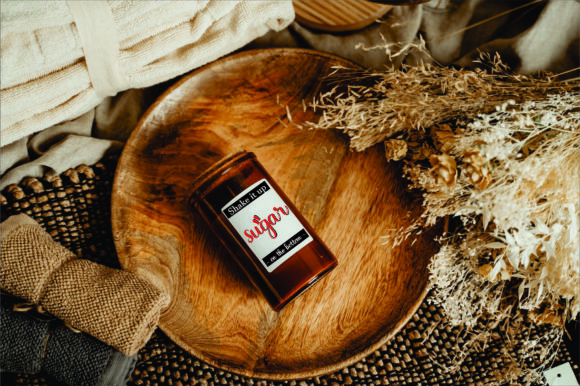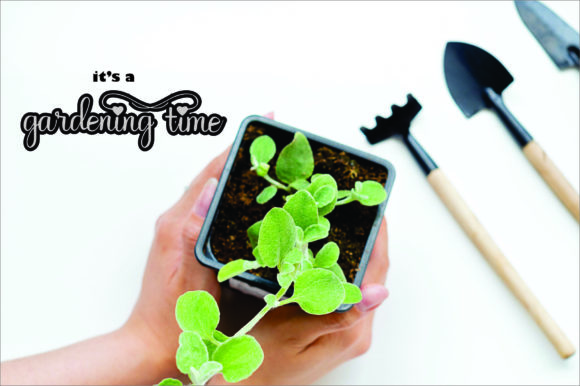
Sandria Font
db-ku.com - Script & Handwritten -- Sandria is a script fonts and modern calligraphy fonts. It has a charming slim body that is quite straight and clean, made with care for logos, website headers, fashion designs, wedding card designs, and more. Add this lovely font to your creations and take your designs to the next level!